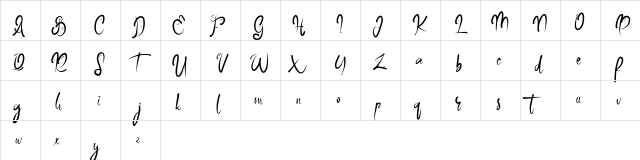
Pastilec FREE Regular
Design Context for Pastilec FREE Typeface
Pastilec FREE is a composed and adaptable typeface that performs quietly and consistently across a wide range of design contexts.